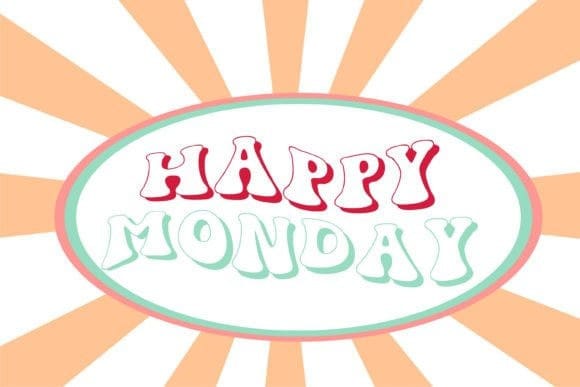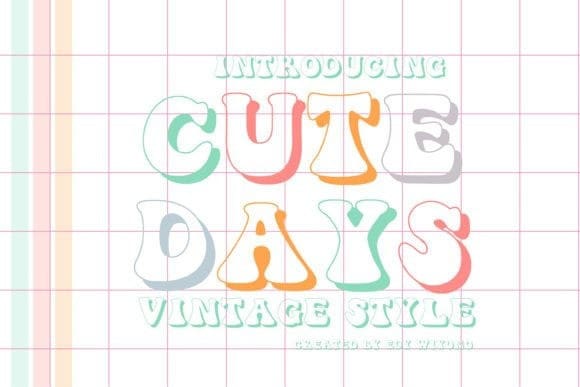
Cute Days Font
Cute Days Font is a fun and quirky retro-inspired display font. Its playful curves and rounded edges give it a friendly and approachable feel, while its bold lettering commands attention. The font’s bold, all-caps design is perfect for headlines, logos, and branding projects, and its vintage-style look is perfect for projects that need a touch of nostalgia.